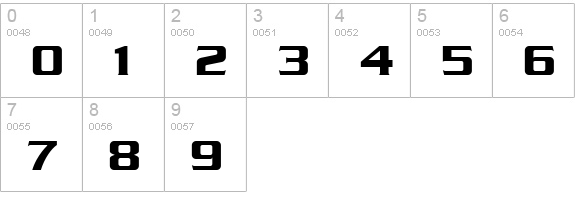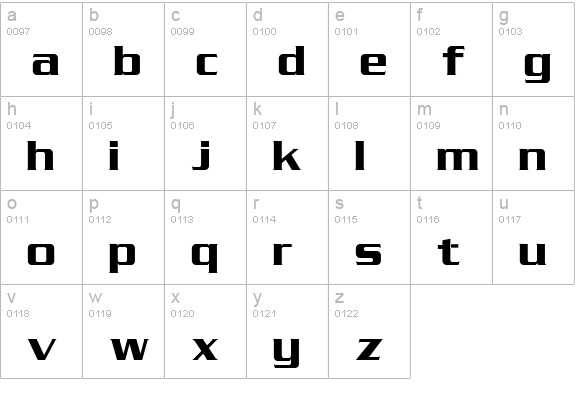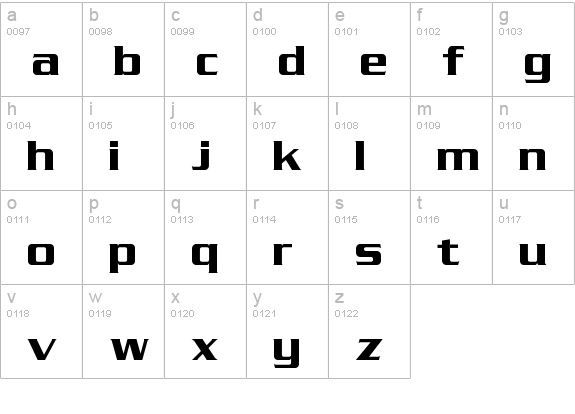
DG_Serpentine Font Details
Introducing DG_Serpentine font - a versatile and elegant typeface that exudes sophistication and modernity. With its sleek lines and stylish curves, this font is perfect for a wide range of design projects, from branding to packaging to editorial work. Inspired by the graceful movement of serpentine shapes, DG_Serpentine font adds a touch of fluidity and grace to any text it adorns. The best part? DG_Serpentine font is available for free download at FontsMarket.com! Whether you're a seasoned designer looking to add a new font to your collection or a beginner exploring typography for the first time, DG_Serpentine font is the perfect choice. Download it today and add a touch of elegance and style to your next project.